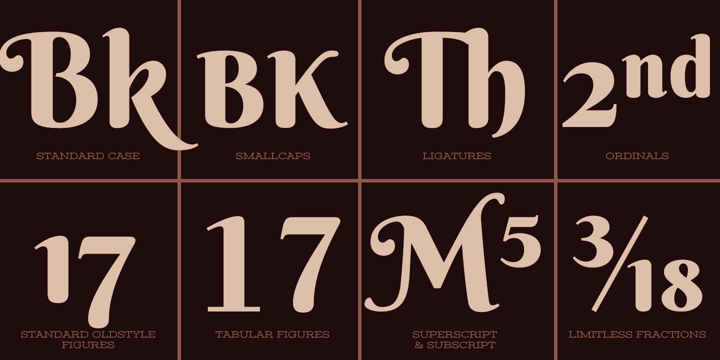
Berkshire Pro
por Stiggy & Sands
La familia tipográfica Berkshire Pro fue diseñada por Jim Lyles, Brian J. Bonislawsky y publicada por Stiggy & Sands. Berkshire Pro contiene 3 estilos y opciones de paquete familiar.
Berkshire Pro is a charming decorative serif family that began with Berkshire Swash Pro, then expanded into a trio of complementary styles: Regular, Loops, and Swash. With its bold curves, ornamental details, and gently feminine flair, the family blends vintage elegance with a warm theatrical personality. Well suited for book covers, posters, branding, packaging, menus, music and film titles, and expressive editorial design, Berkshire Pro brings a romantic, story-rich voice to display typography. Pro features add flexibility with ligatures, SmallCaps, multiple figure styles, inferiors and superiors for fractions, and extended language support for polished professional use.
Diseñadores: Jim Lyles, Brian J. Bonislawsky
Editorial: Stiggy & Sands
Fundición: Stiggy & Sands
Propietario del diseño: Stiggy & Sands